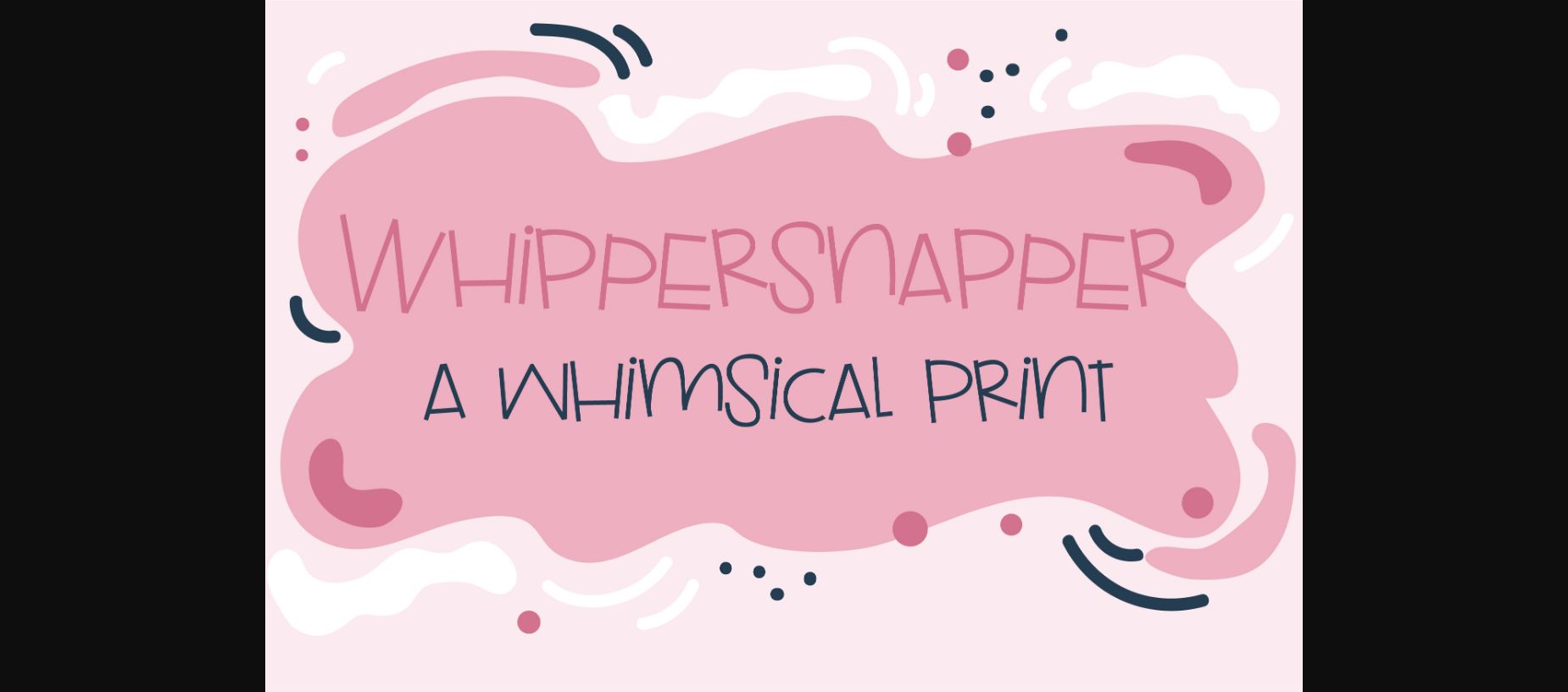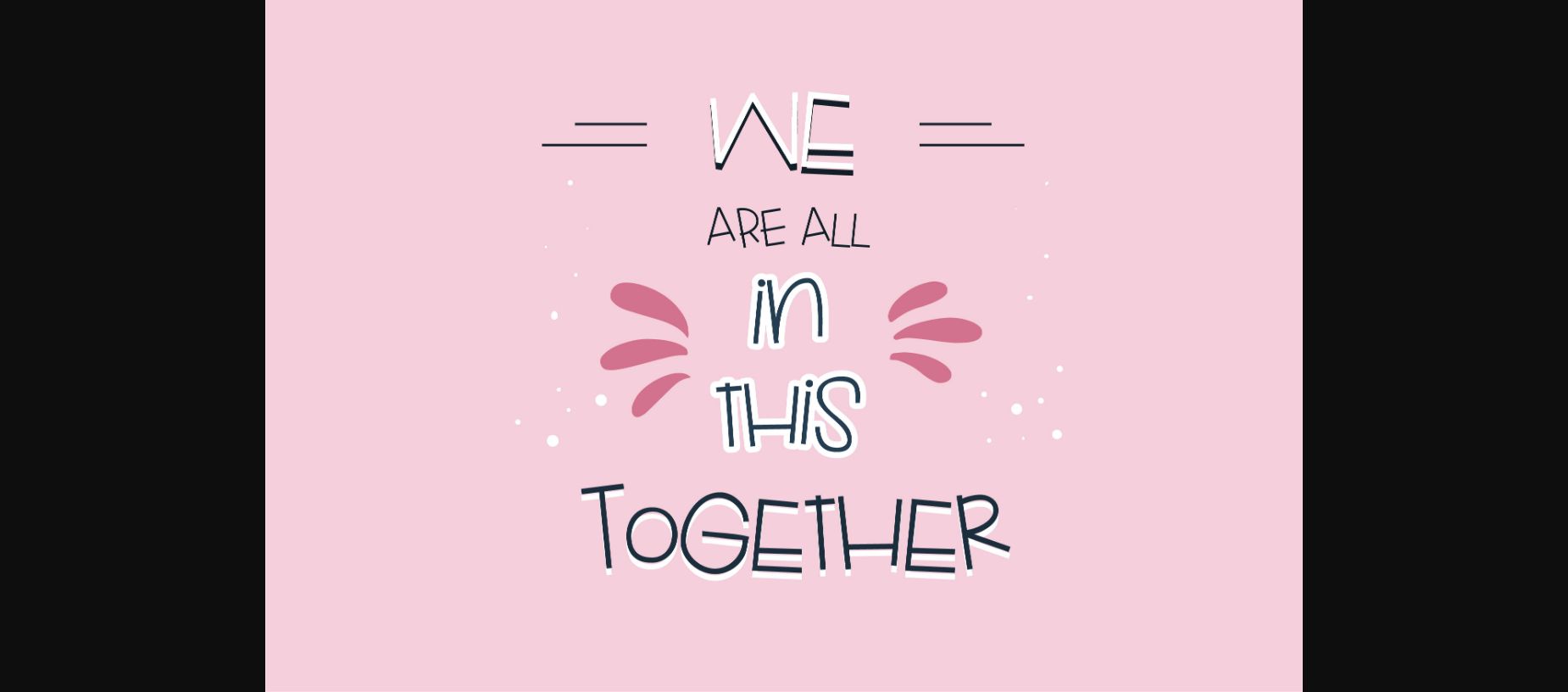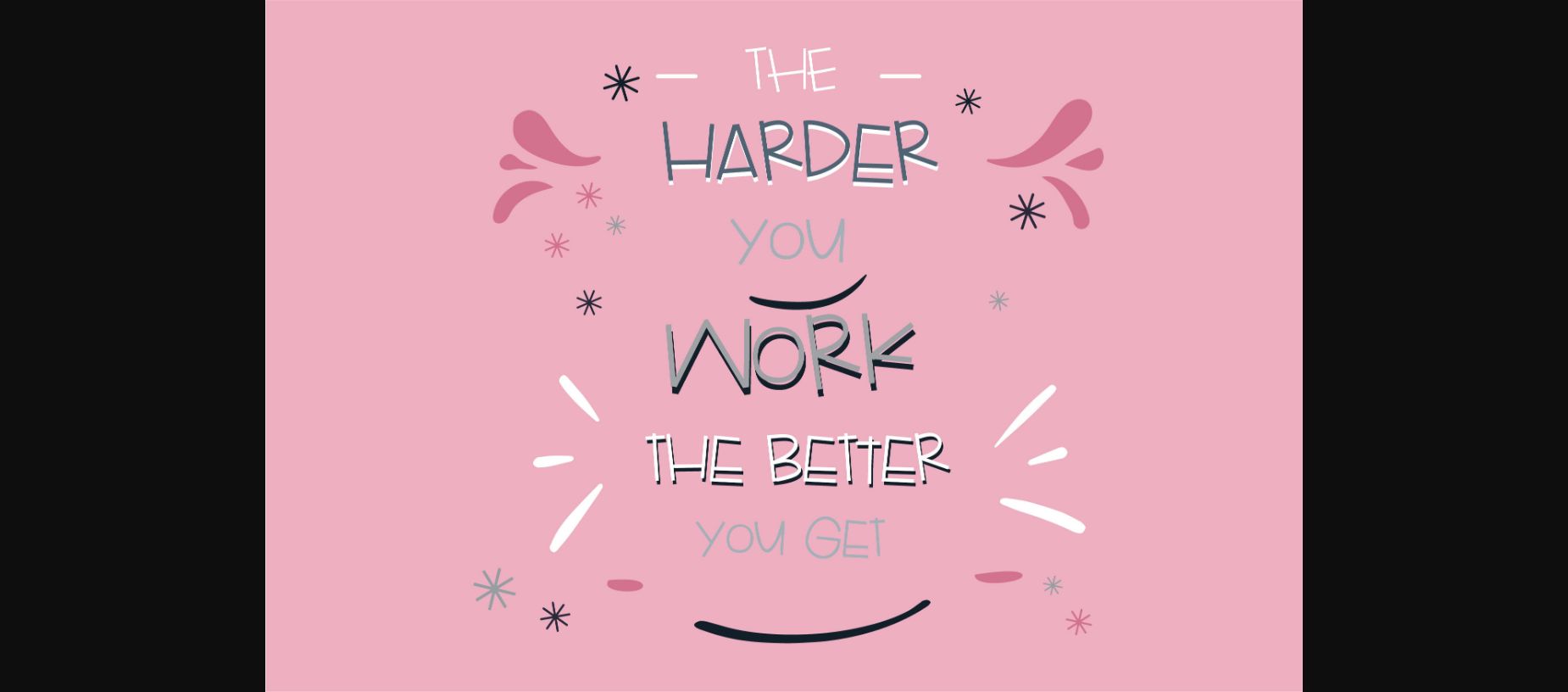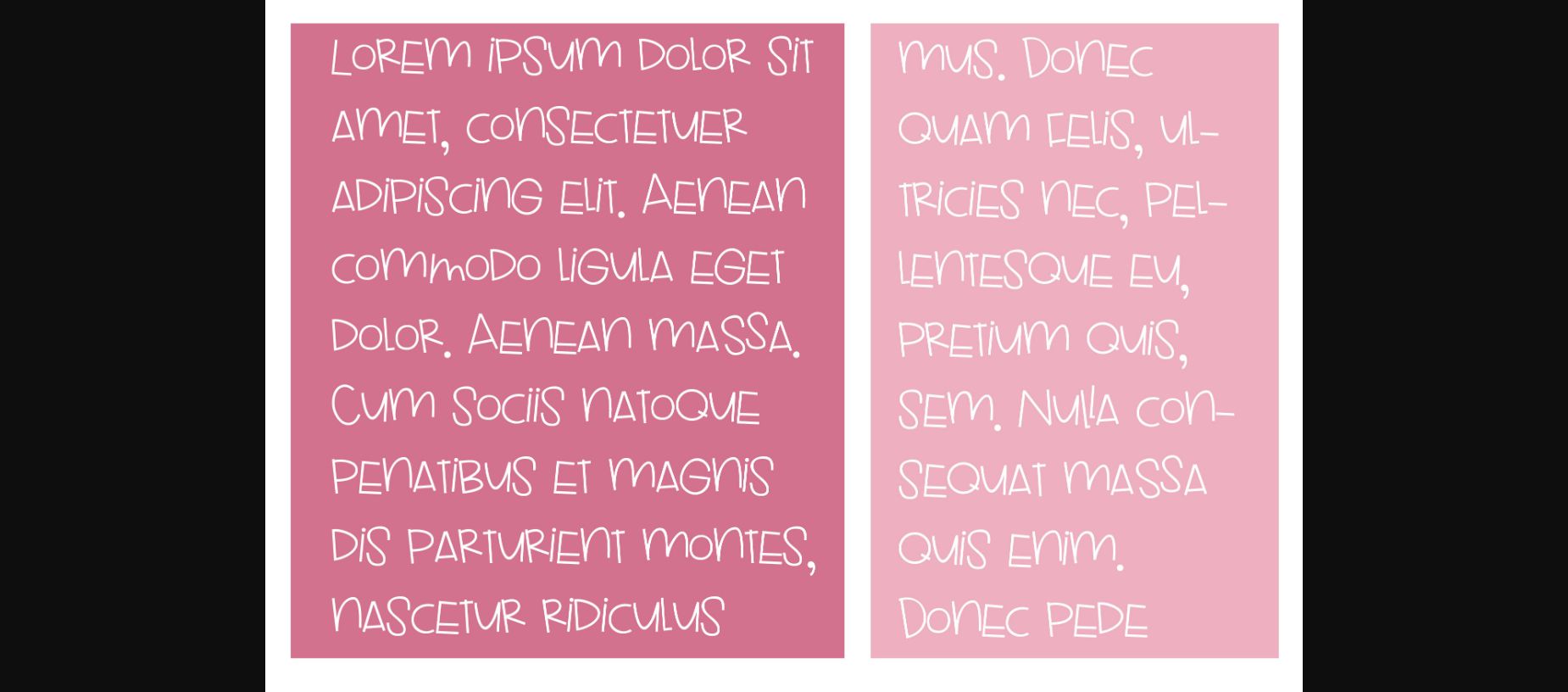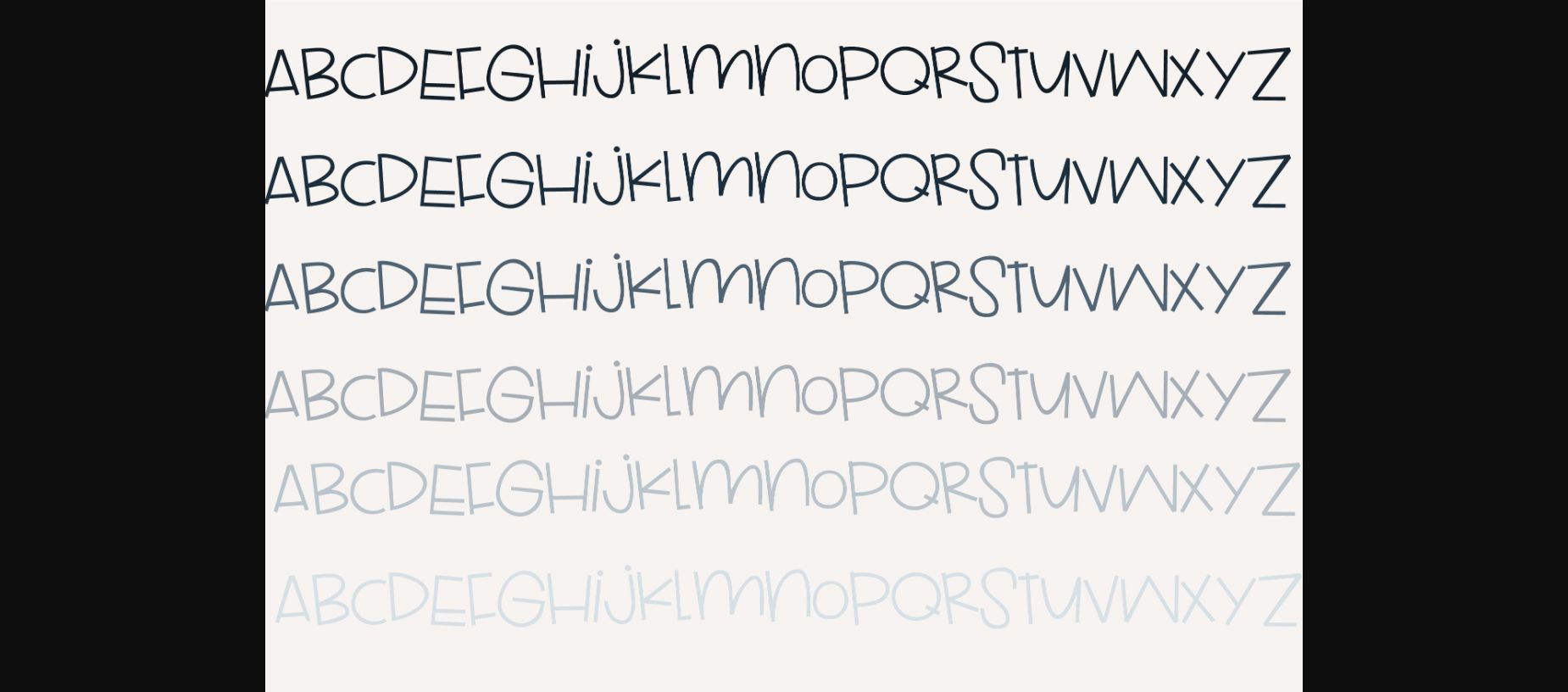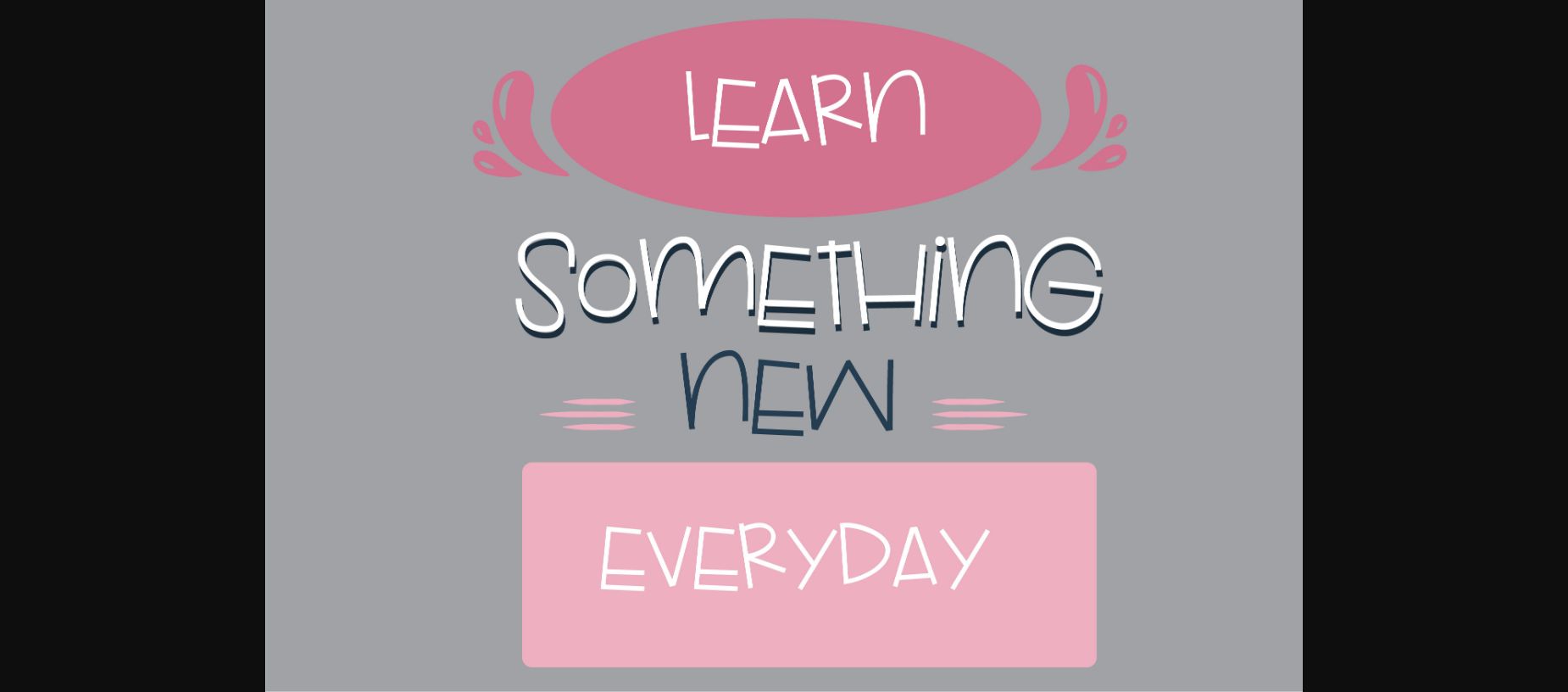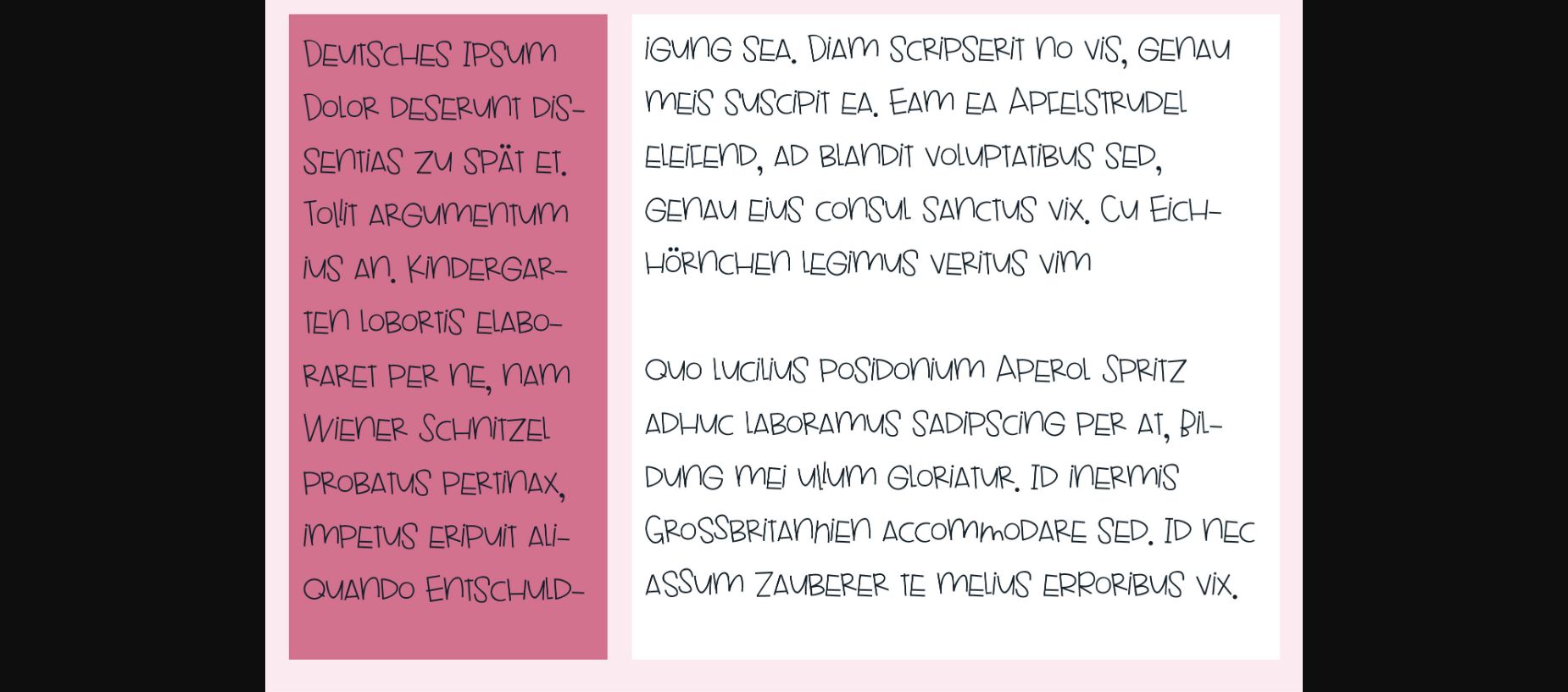
Whippersnapper Font
About Whippersnapper Font
This whimsical sans serif font has a very fun and youthful feel. Whippersnapper is perfect for creating a playful and easy-to-read text!